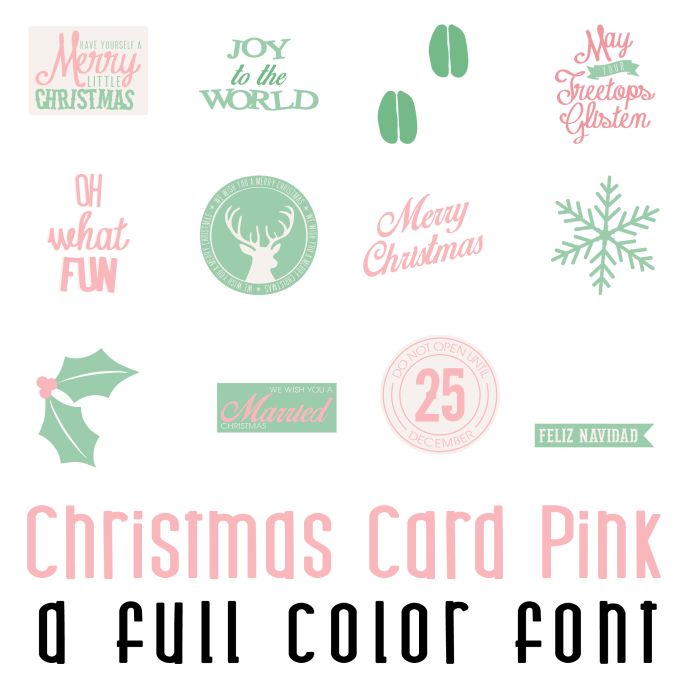
This fun full color font features 26 Christmas images in pastel colors. Perfect for cards, crafts, parties, gifts, decor, planner stickers, classrooms, scrapbook pages and more!